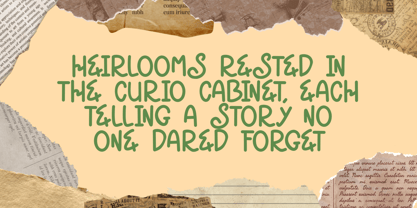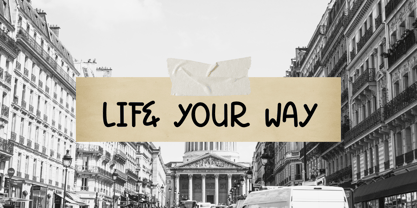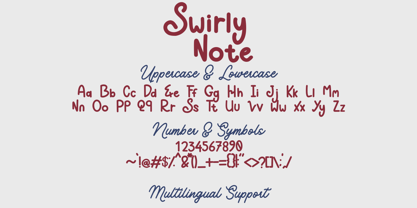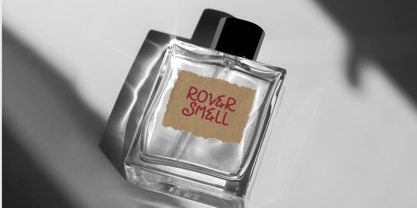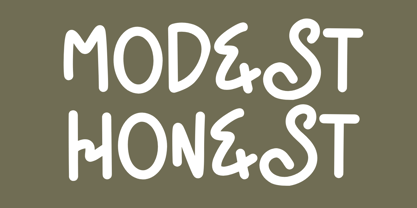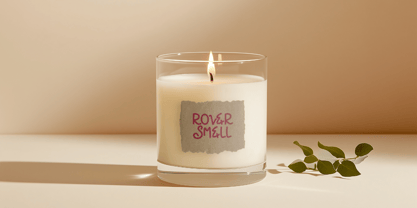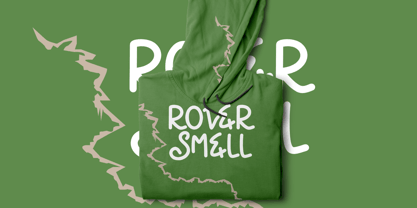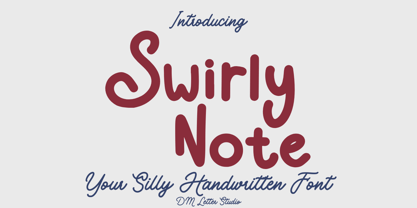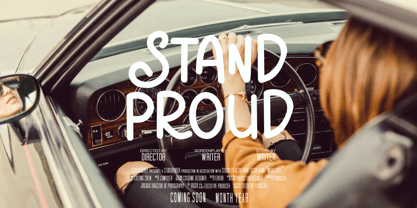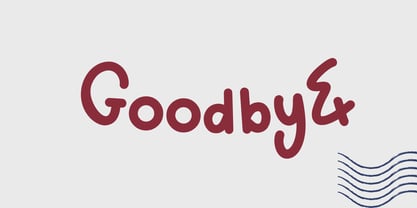
Swirly Note
The Swirly Note Font Family was designed by Dimas Prasetyo and published by DM Studio. Swirly Note contains 1 styles.
Swirly Note is a silly yet sophisticated handwritten font that combines friendly curves with modern elegance. Perfect for luxury logos, food branding, and bold headline designs, this typeface strikes a balance between playful charm and refined style.
Its rounded strokes and confident luxury bold form make it versatile for anything from modern café menus and gourmet food labels to elegant logo designs and creative packaging. Whether you’re crafting a boutique sign, stylish merchandise, or high-end promotional material, Swirly Note adds personality while keeping a premium, polished feel.
Designed for readability and character, this font brings a unique flair to both digital and print designs.
• Luxury Logo Design – Playful yet polished branding identities
• Modern Food Packaging – Artisanal, organic, or gourmet products
• Elegant Event Materials – Invitations, menus, and signage
• Luxury Bold Headlines – Eye-catching display type for print and web
• Creative Branding – From bakeries to lifestyle brands
• Playful Handwritten Script Style
• Bold Letterforms for High Impact
• Uppercase & Lowercase Characters
• Punctuation & Numerals Included
Swirly Note is more than just a fun handwritten font it’s a luxury bold typeface that blends modern style with a hint of silliness, making it perfect for brands that want to stand out with personality and elegance.